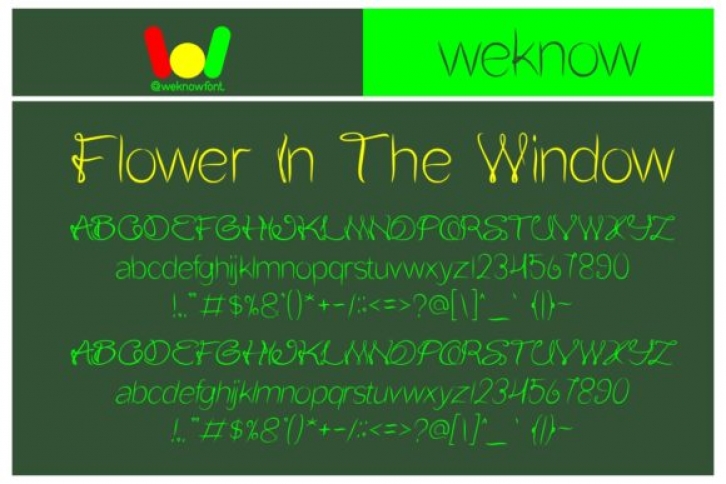
Flower in the Window is a delicate, elegant and flowing handwritten font. It has beautiful and well balanced characters and as a result, it matches a wide pool of designs. Add it to your most creative ideas and notice how it makes them come alive!